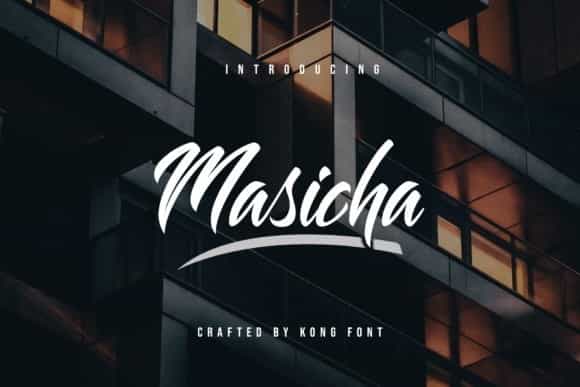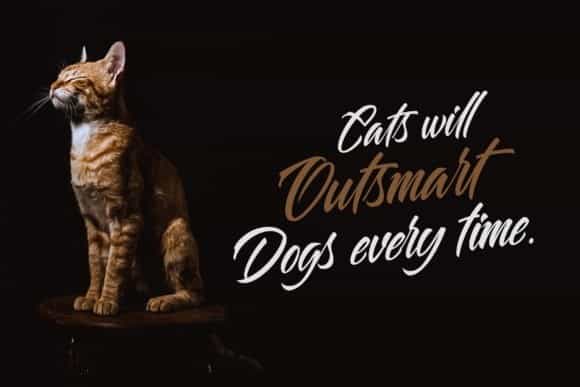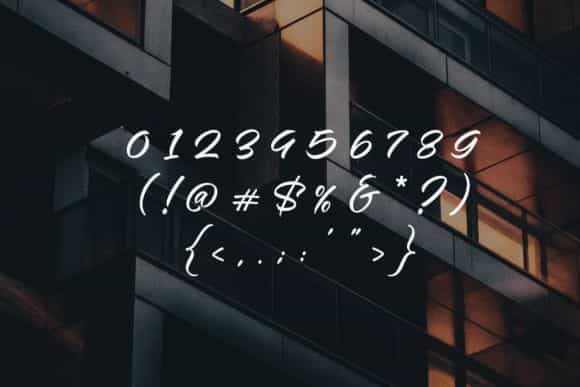
This is Masicha script font, display handbrush lettering, the simple and beautiful letters just for you to type your words which will be immediately beautiful to look at. Best for Greeting cards, Branding, Business cards, Quotes, Posters and much more.